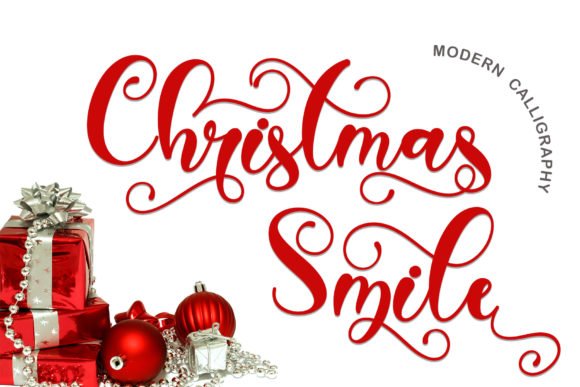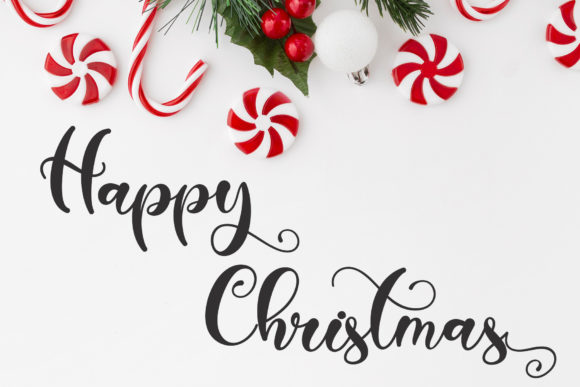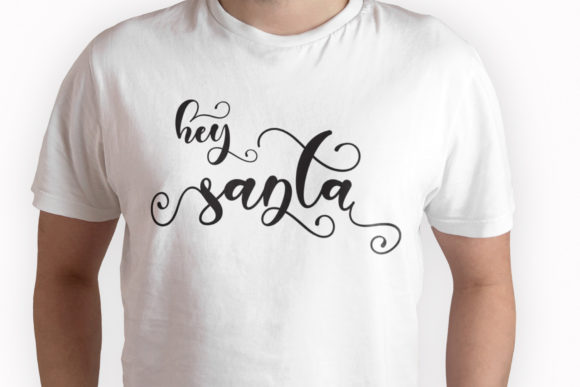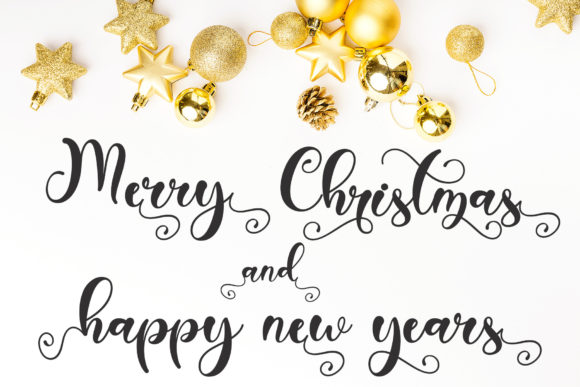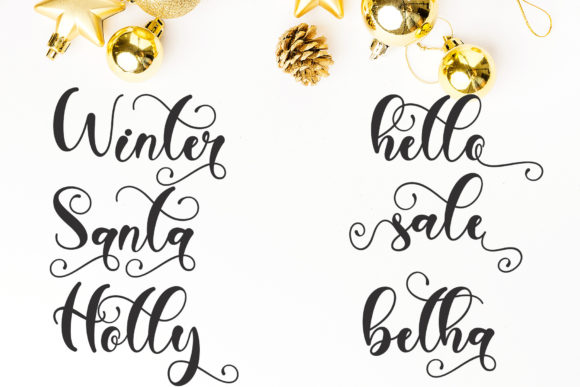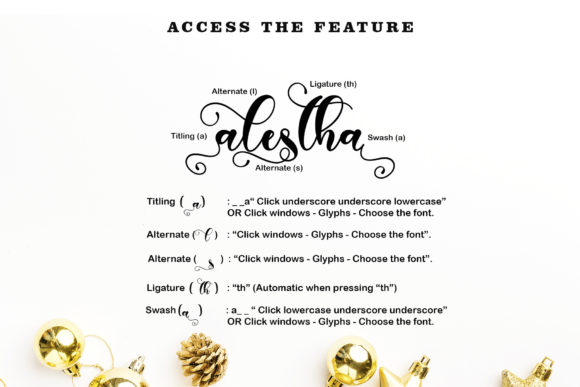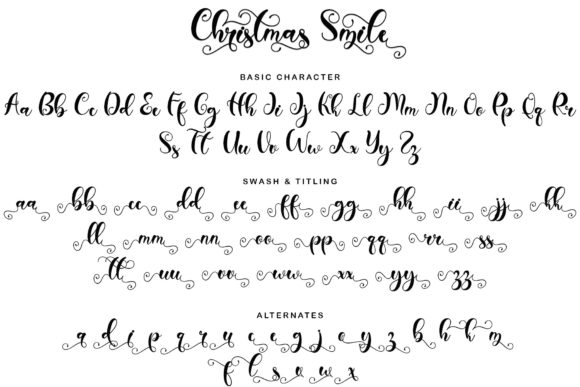
Unlock the Magic of the Holiday Season with Christmas Smile Font
It’s the most wonderful time of the year – the season of twinkling lights, festive decorations, and joyful creativity. As designers, we know that a dash of holiday magic can elevate any project from ordinary to extraordinary. For us, it all starts with the perfect font – one that captures the whimsy and wonder of the season.
Enter Christmas Smile Font, a festive and enchanting calligraphy typeface that will add a touch of luxury to any design project. With its dancing characters and PUA encoded glyphs, this font is a game-changer for designers looking to create truly special holiday content. Whether you’re crafting a festive marketing campaign or designing a holiday card, Christmas Smile Font is sure to bring a smile to your audience’s faces.
Key Features of Christmas Smile Font
- Font Style: Christmas Smile Font is a festive and playful font, perfect for holiday-themed designs and projects.
- Font Size: Supports font sizes ranging from 8 to 120 points, making it suitable for various design applications.
- Unique Characteristics: Features a distinctive smile design element, adding a touch of whimsy and fun to holiday-themed designs.
- Language Support: Supports a wide range of languages, including Latin, Cyrillic, and Greek alphabets, making it a versatile font for global designs.
Designer Review: Christmas Smile Font
Overall, I’d say the Christmas Smile Font is a decent choice for holiday-themed projects. It has its strengths and weaknesses, which I’ll outline below.
- The font is very festive and captures the essence of Christmas with its cheerful design.
- It’s highly legible, even at smaller font sizes, making it suitable for body text.
- The font includes a range of characters, including punctuation and special symbols, which can enhance the overall design.
- The font is quite ornate and might not be the best choice for projects where simplicity is key.
- It may not be suitable for large blocks of text, as it can become overwhelming.
- The font’s design is very specific to Christmas, which might limit its use beyond the holiday season.
The Christmas Smile Font is a fun and playful choice for holiday-themed projects. While it has its limitations, it can add a touch of festive cheer to any design. If you’re looking for a font that’s perfect for Christmas cards, gift tags, or other holiday materials, this might be a good option. However, for more general use or projects that require simplicity, you might want to consider other font options.
The Christmas Smile Font is perfect for creating festive and cheerful designs for the holiday season. Use it for:
- Christmas card invitations
- Holiday social media posts
- New Year’s Eve party invitations
- Festive website headers
Remember to pair the font with complementary colors and designs to create a cohesive and eye-catching visual effect.